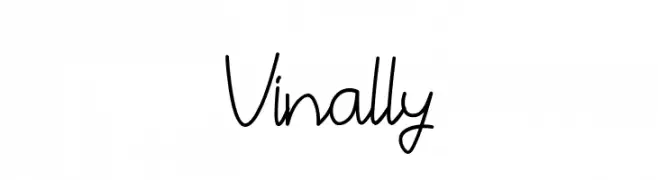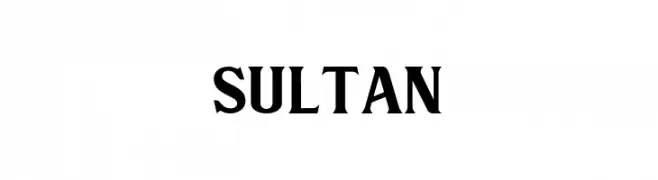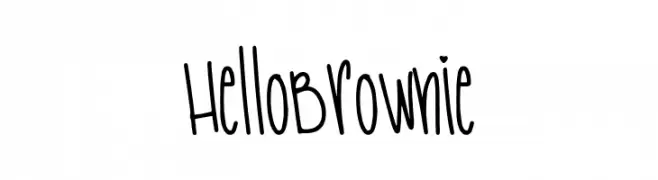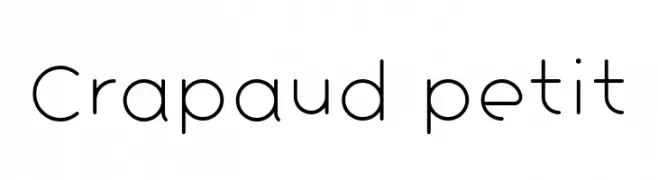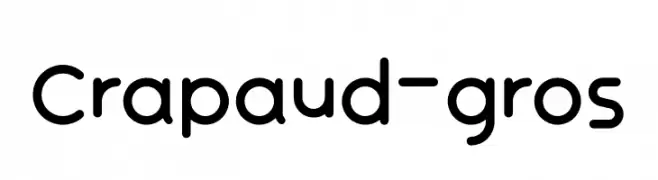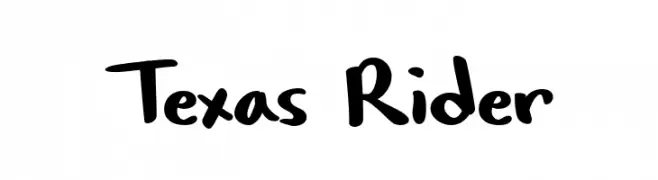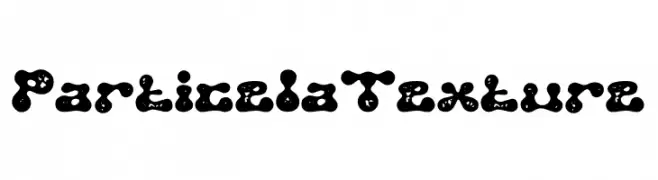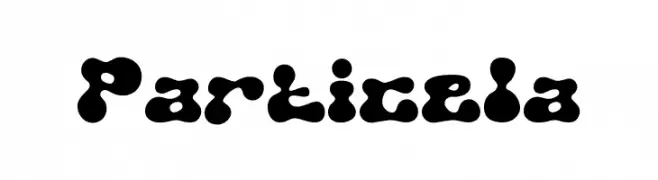
A playful handwritten font with smooth, flowing lines and a casual style.
A bold serif font with high contrast and angular serifs, exuding sophistication and authority.
A decorative, cursive font with elegant loops and dynamic contrast.
A playful, hand-drawn font with tall, narrow letters and a whimsical style.
A clean, geometric sans-serif font with balanced spacing and modern appeal.
A playful, rounded font with smooth curves and uniform strokes.
A bold, playful handwritten font with rounded, smooth letterforms.
A textured, playful font with a bubbly, organic design.
A playful, bold font with rounded, blob-like characters.
A dynamic and elegant handwritten font with fluid, cursive strokes.